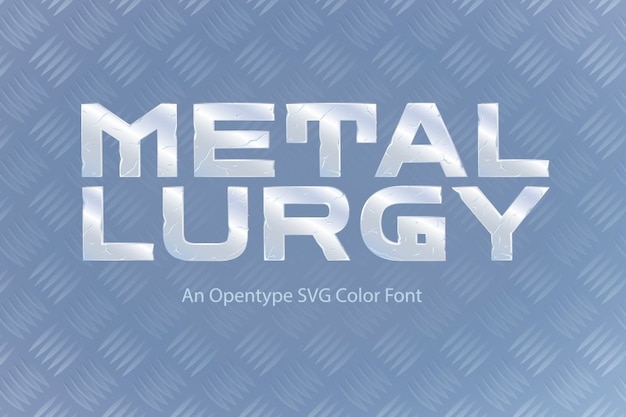
Metallurgy is a new font to take your creations to a new level! Great to add a metallic style to your creations; this typeface will make your backgrounds and posters even more special! Download it now and start creating.